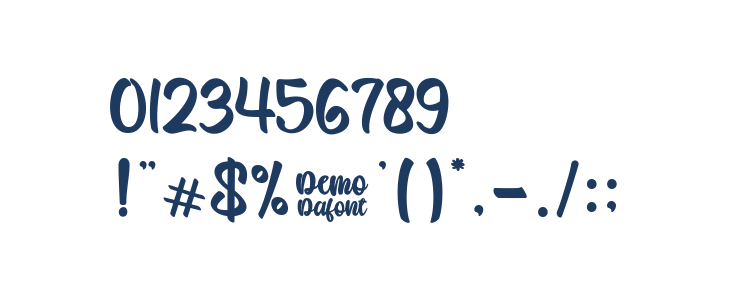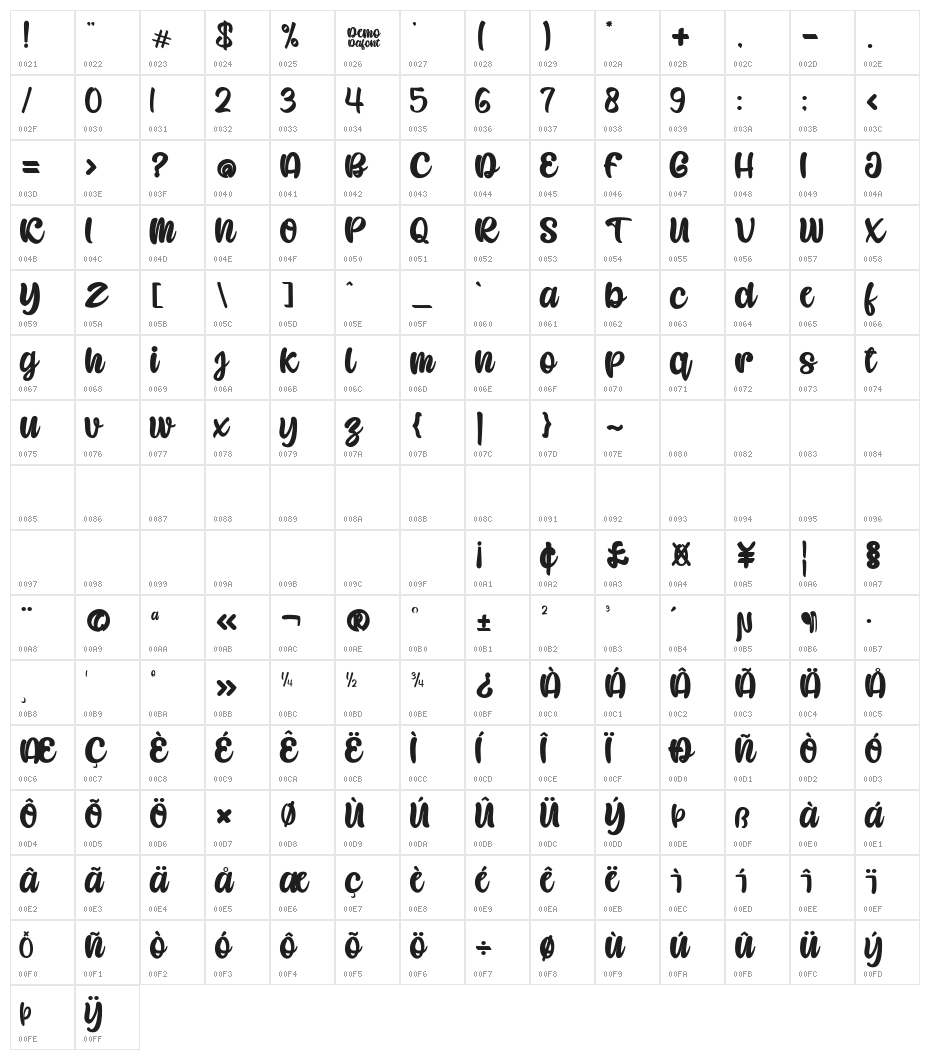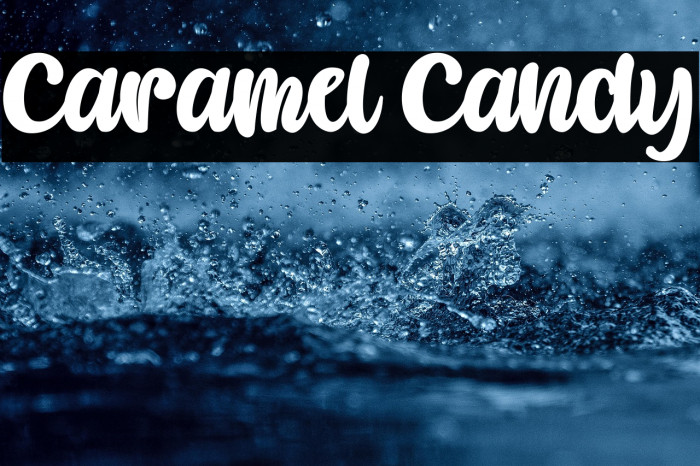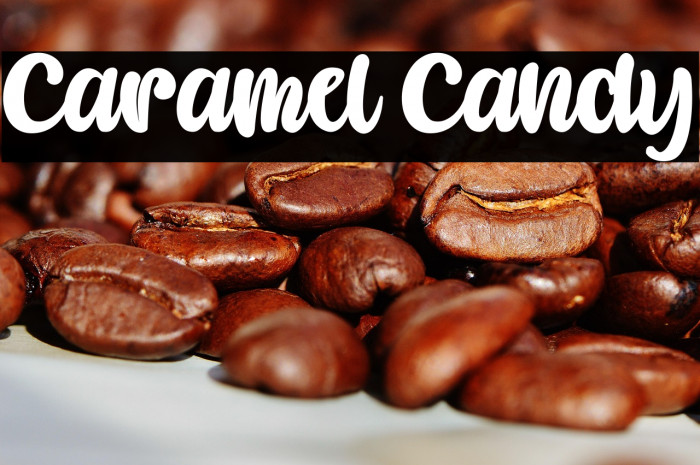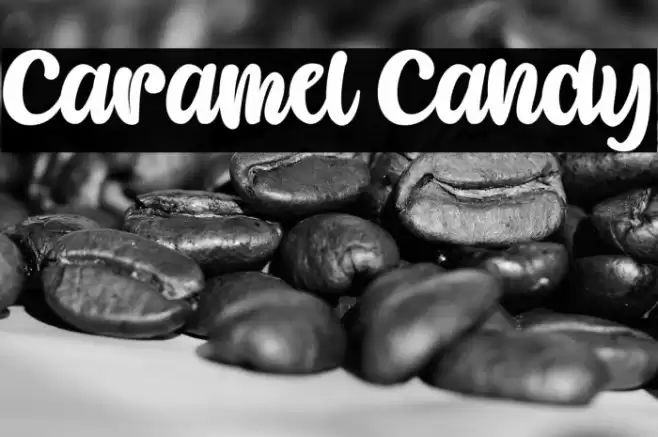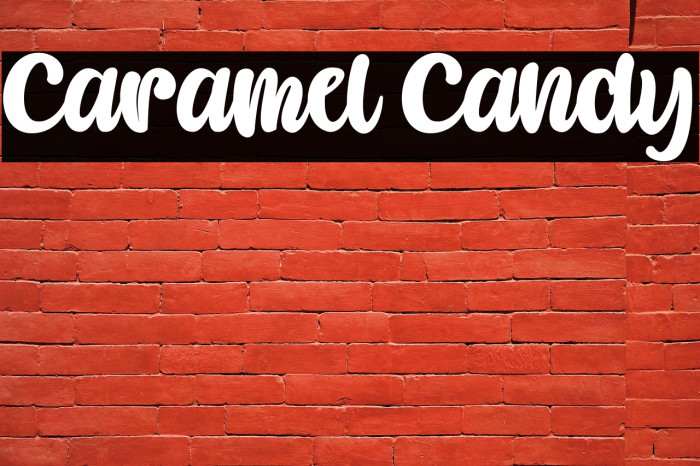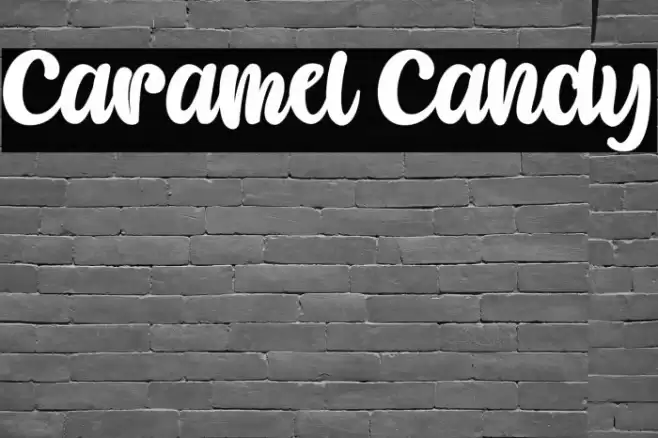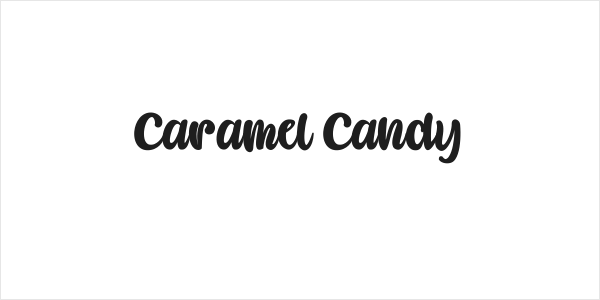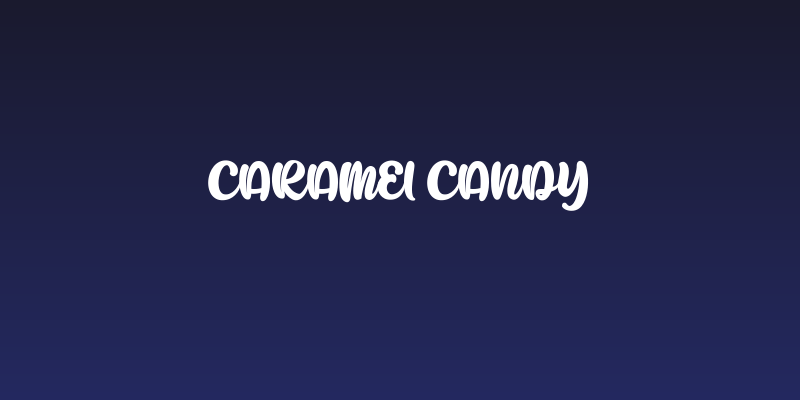
Caramel Candy Font
Caramel Candy Description
This playful and bold font features a handwritten style with a smooth, flowing appearance. The characters are rounded and thick, giving a sense of warmth and friendliness. Each letter connects seamlessly, creating a cohesive and visually appealing look. The font maintains a consistent weight throughout, enhancing its readability while adding a touch of whimsy. The numbers and special characters are designed to match the overall style, ensuring a harmonious appearance across all text elements.
| Proposed Projects | Ideal for children's books, playful branding, greeting cards, and social media graphics. |